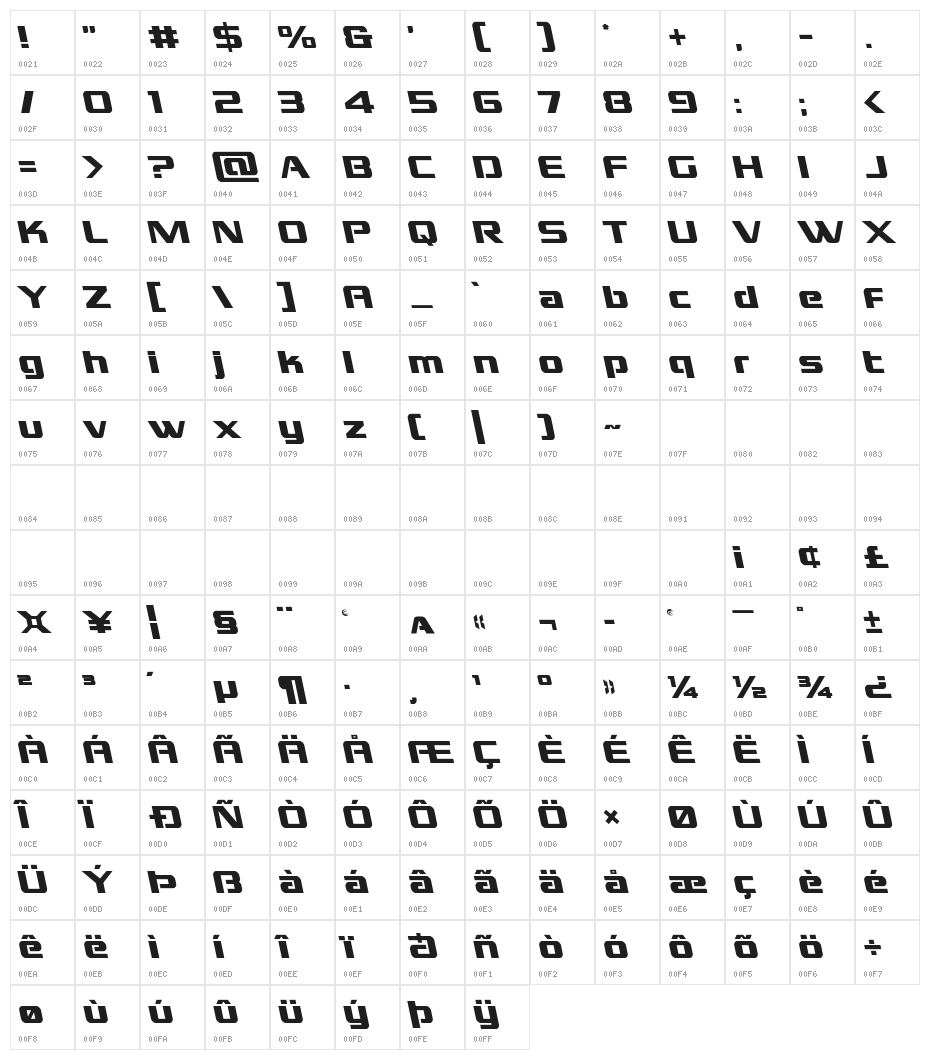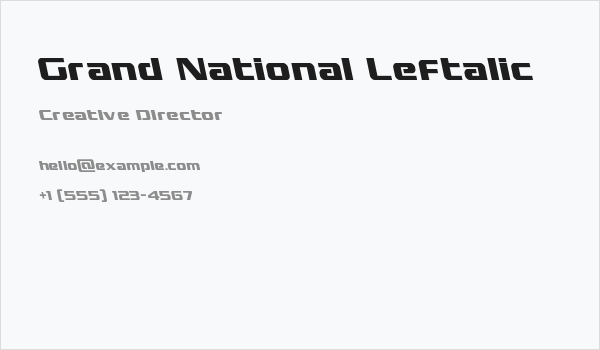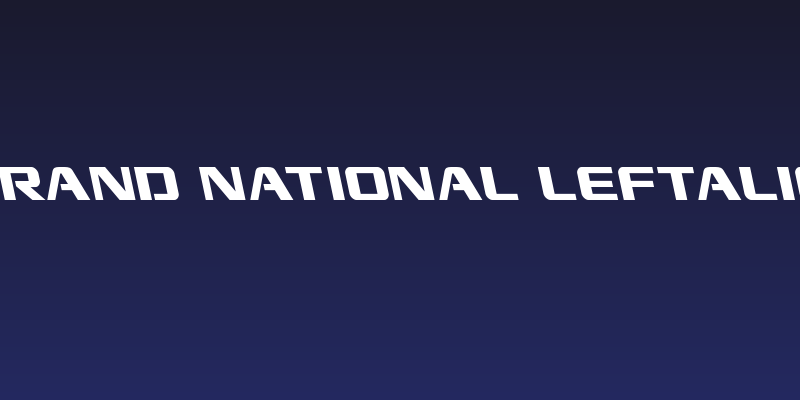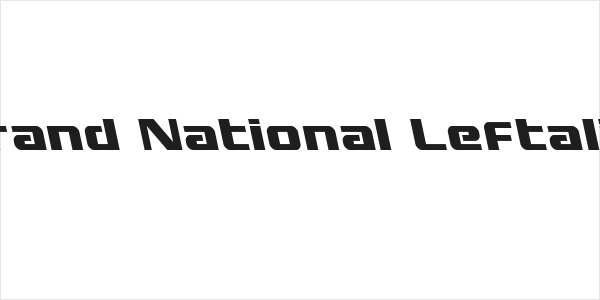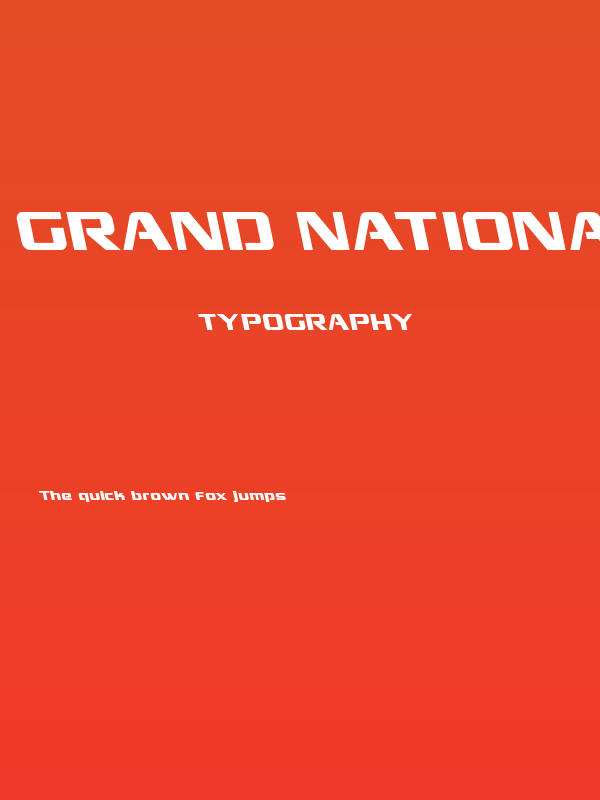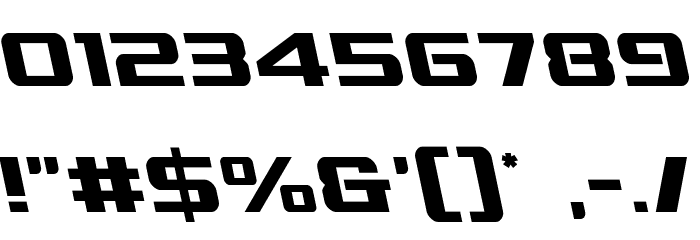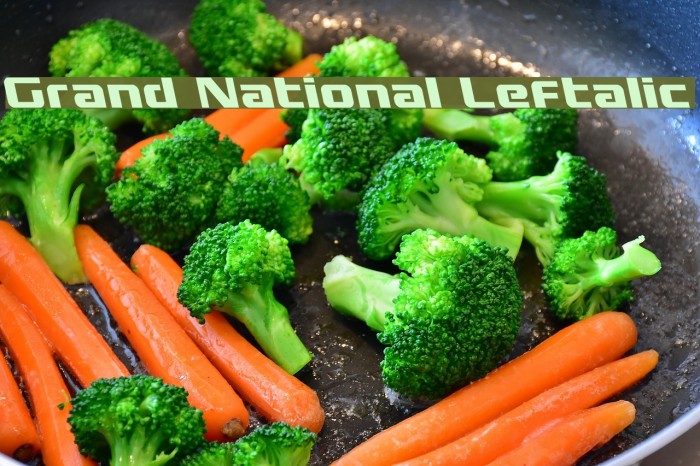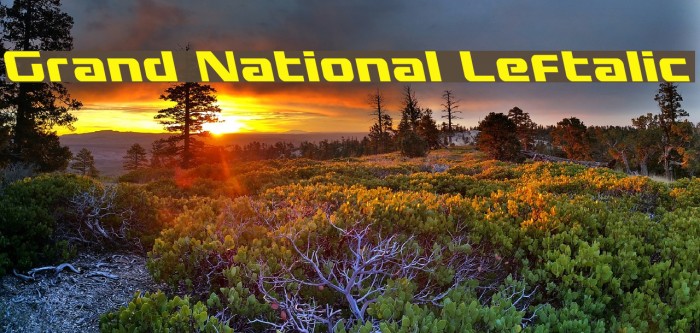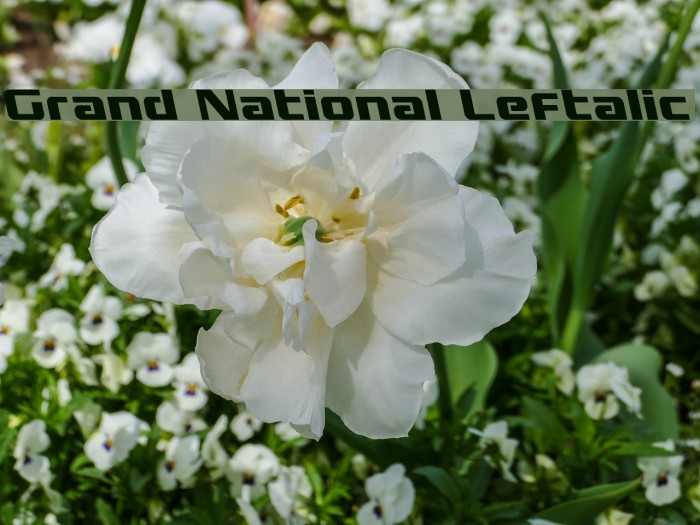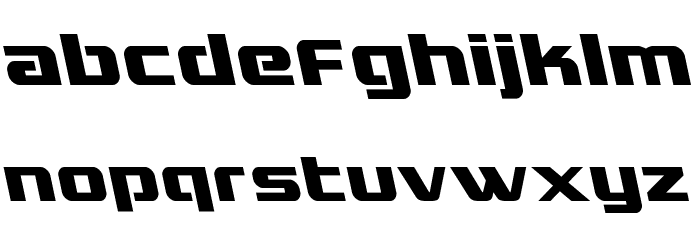
Grand National Leftalic Font
Grand National Leftalic Description
This font features a bold, angular design with a futuristic and sporty aesthetic. The characters are slightly slanted, giving a dynamic and forward-moving impression. The uppercase and lowercase letters maintain a consistent style, with sharp edges and a blocky structure. The numerals and special characters follow the same design principles, ensuring a cohesive look across all glyphs. The font's strong presence makes it suitable for attention-grabbing applications.
| Proposed Projects | Ideal for sports branding, automotive designs, video game interfaces, and dynamic posters. |